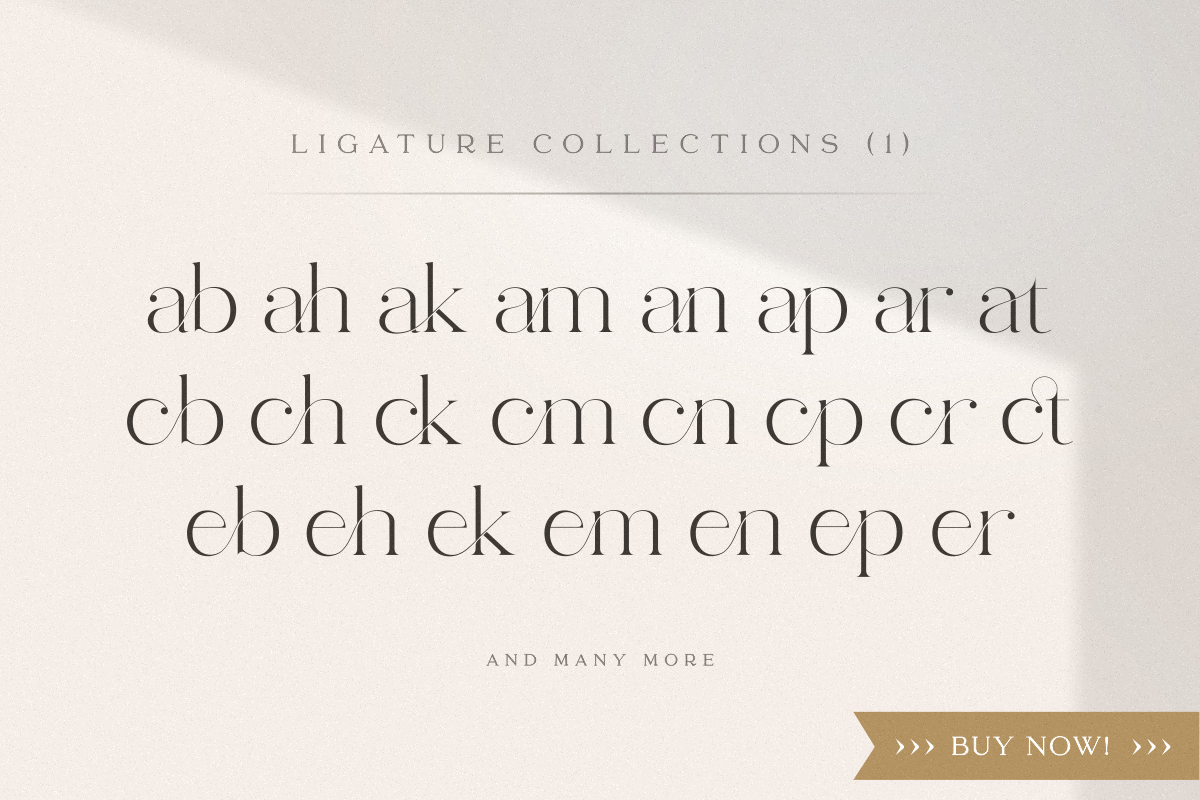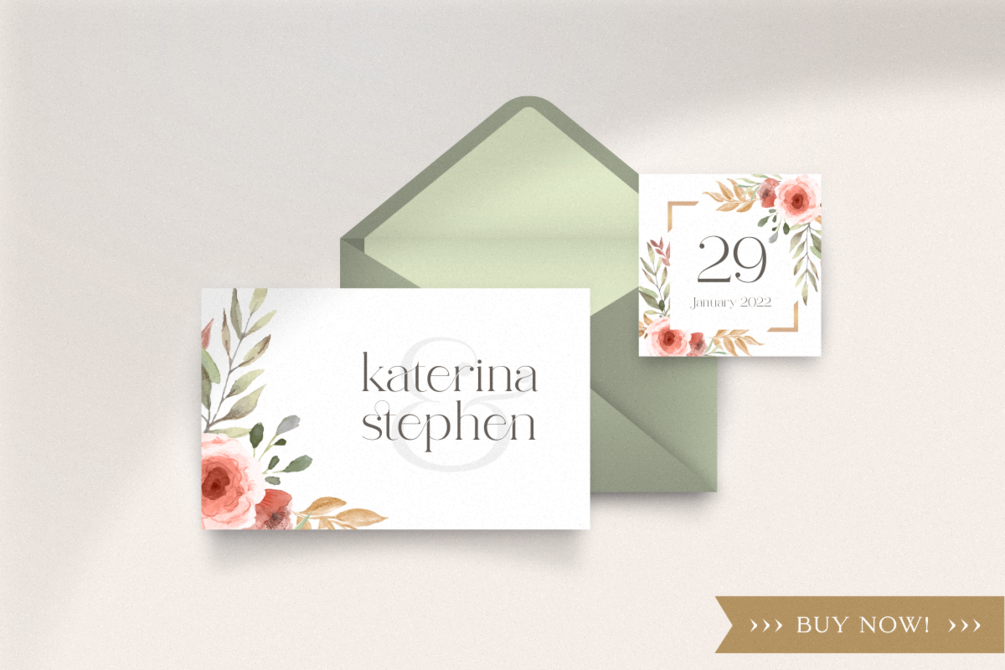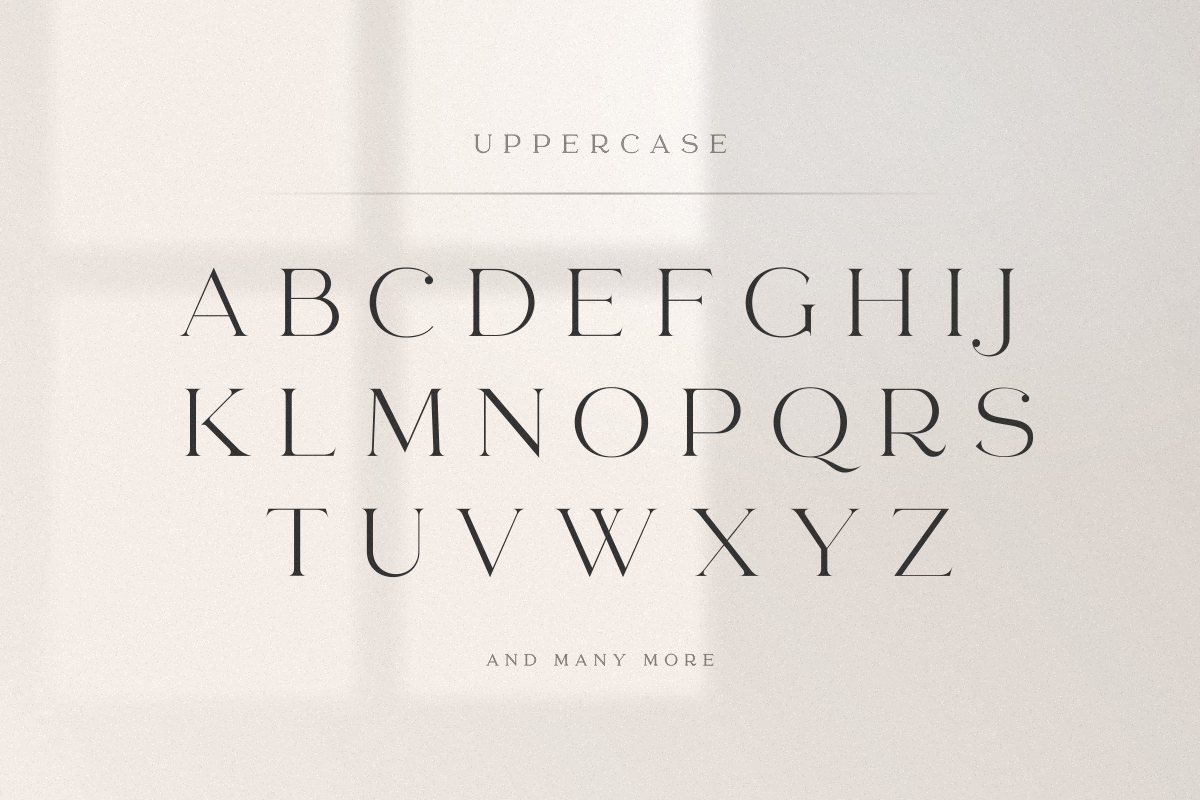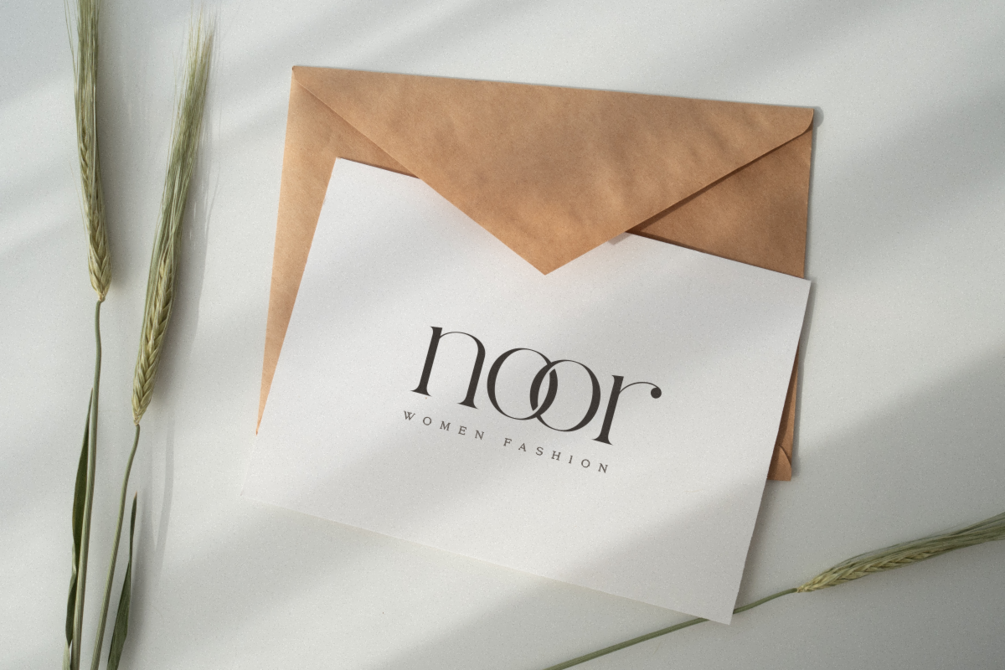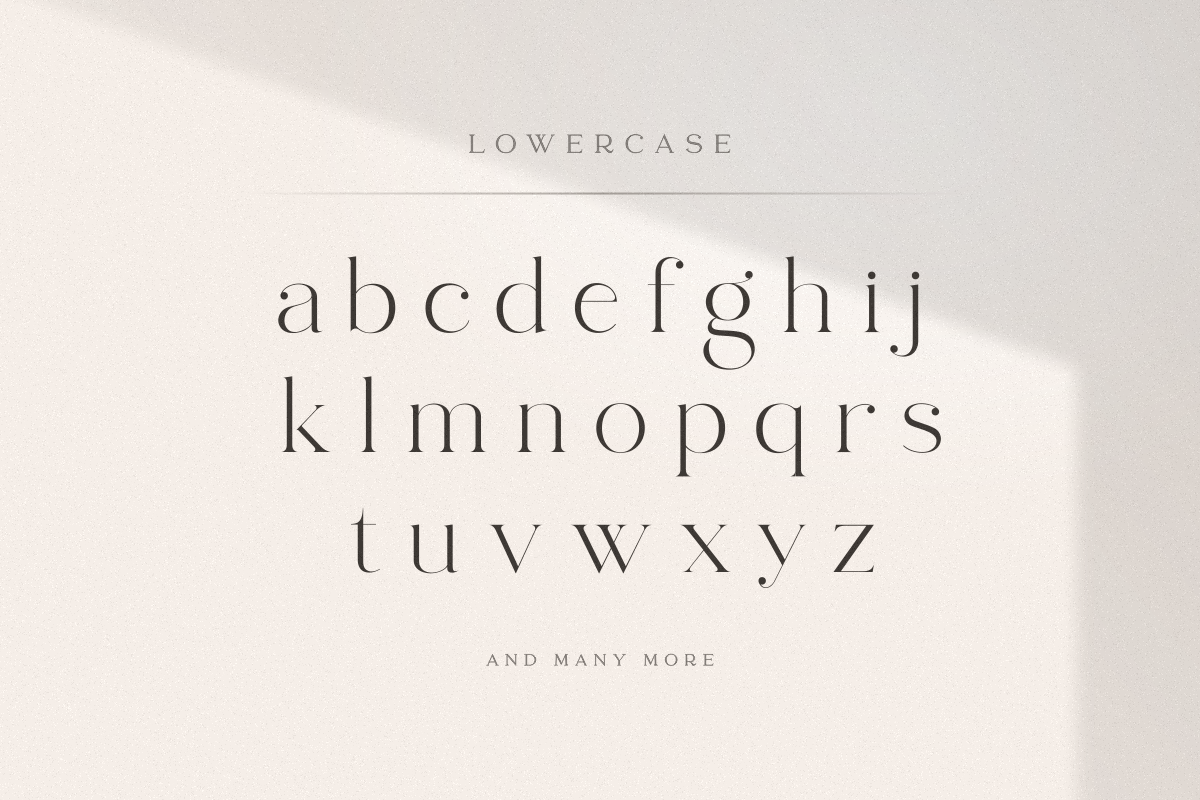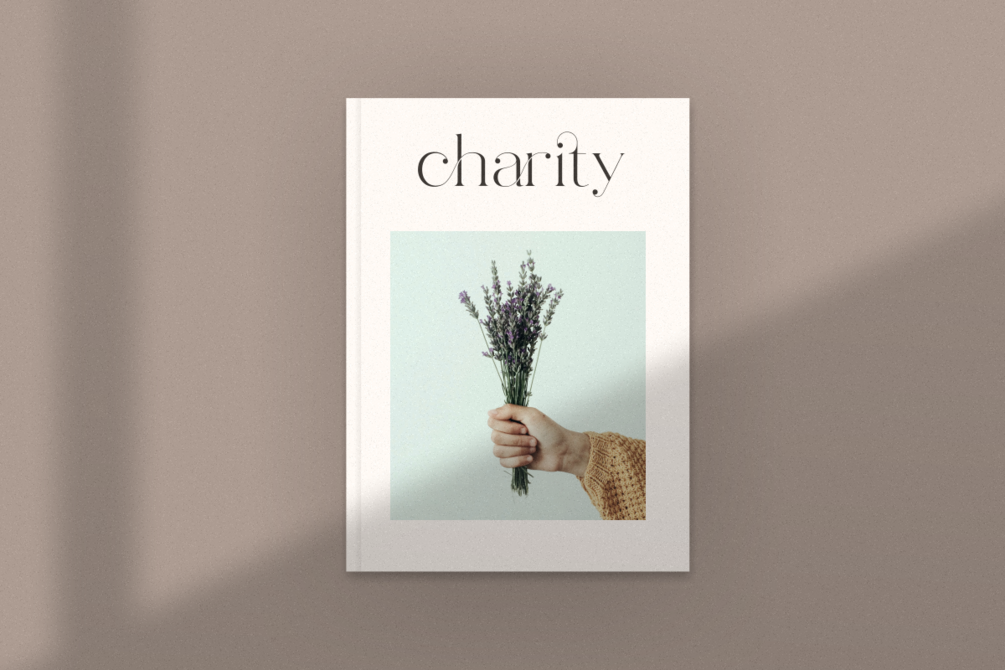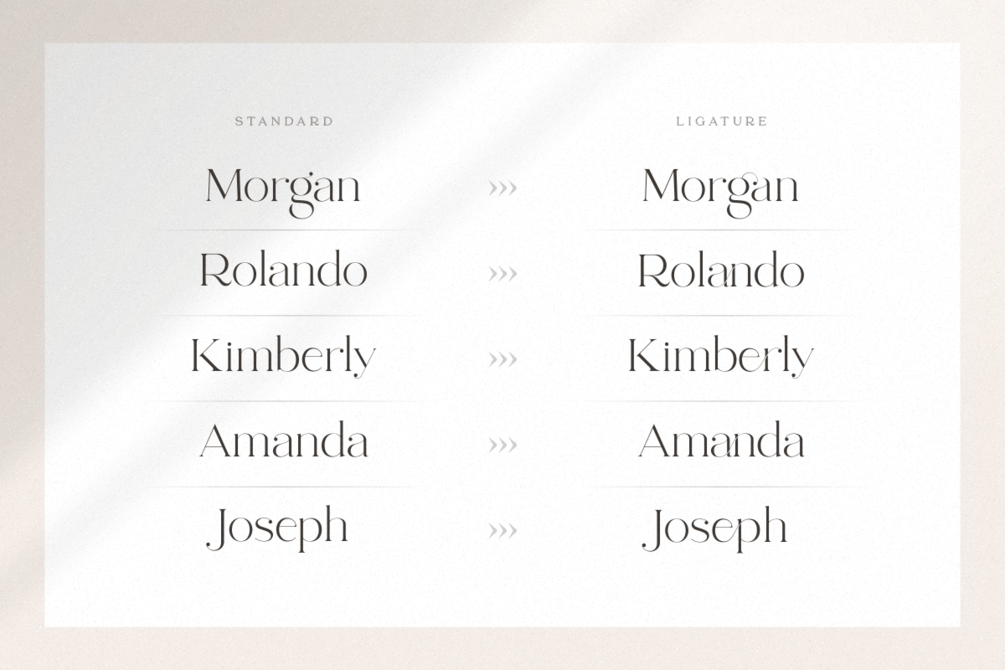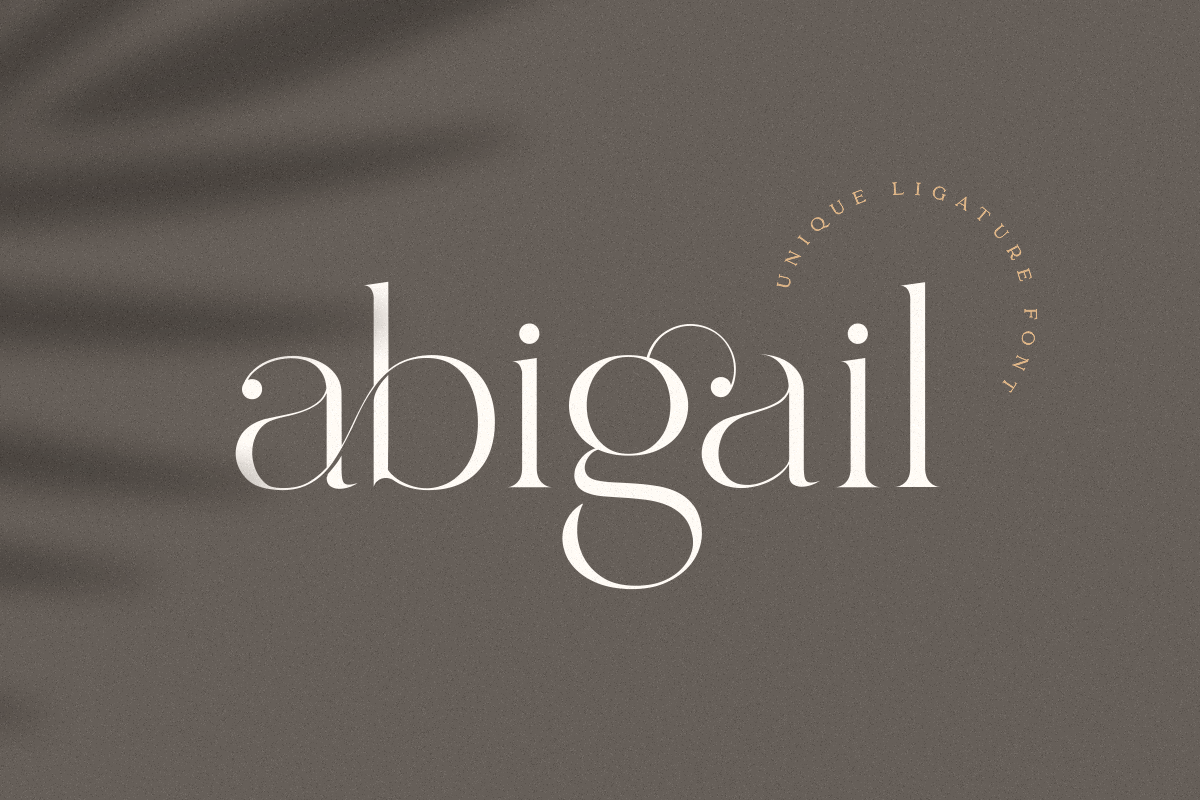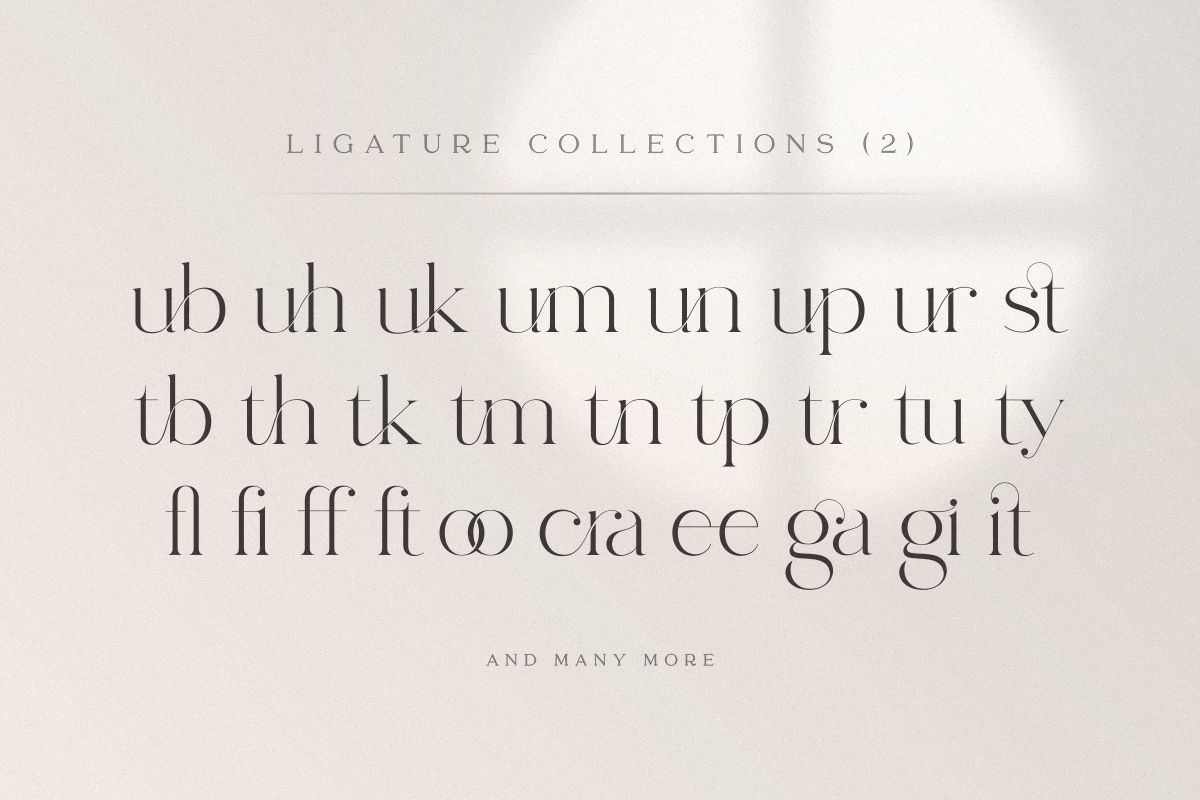
Abigail - Unique Ligature Font
Abigail is a unique and very elegant font for brand and logo design.
Based on our experience as a graphic designer who works for a lot of companies, we often are requested to design a logo in a unique style but with an elegant shape. So, we try to brainstorming and create this font to make the idea is going out. Featuring custom ligatures, this is perfect for branding and logo design. You will get classy, elegant, and certainly unique logos with this font.
Abigail – Unique Ligature Font Features
• Distinctive ligature-based letterforms for creative impact
• Elegant, modern, and stylish design
• Includes uppercase, lowercase, numerals, punctuation, and ligatures
• Perfect for digital and print applications
• OpenType features for versatile typography
• Multilingual support